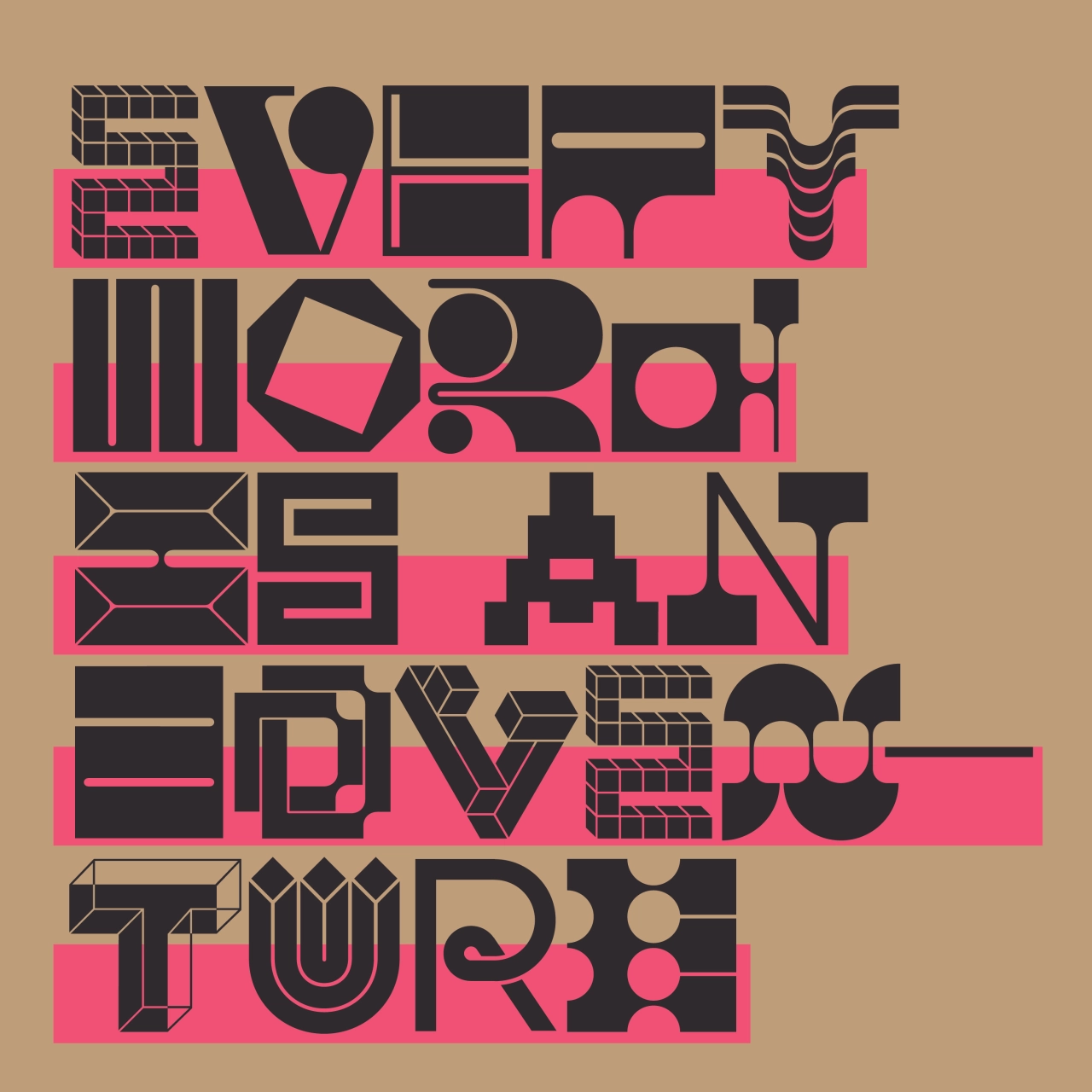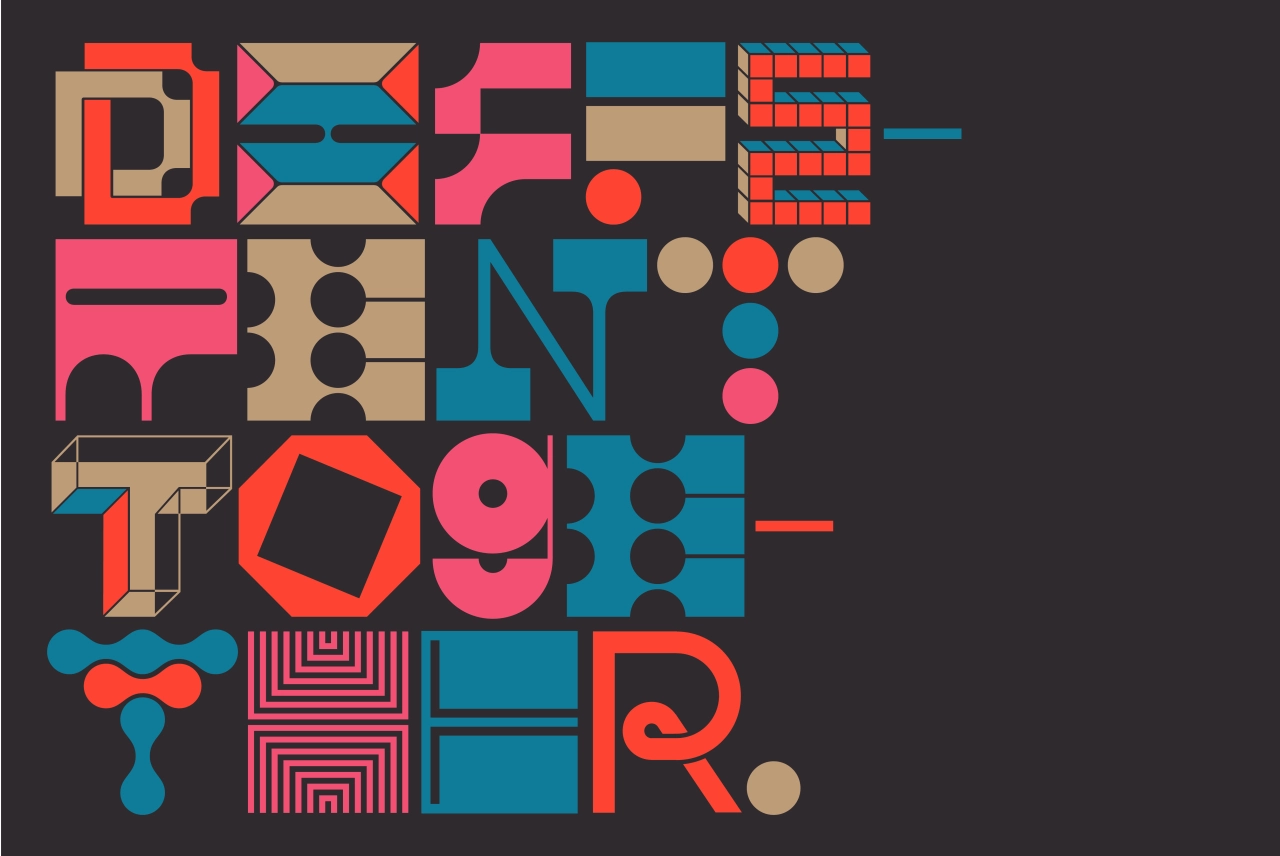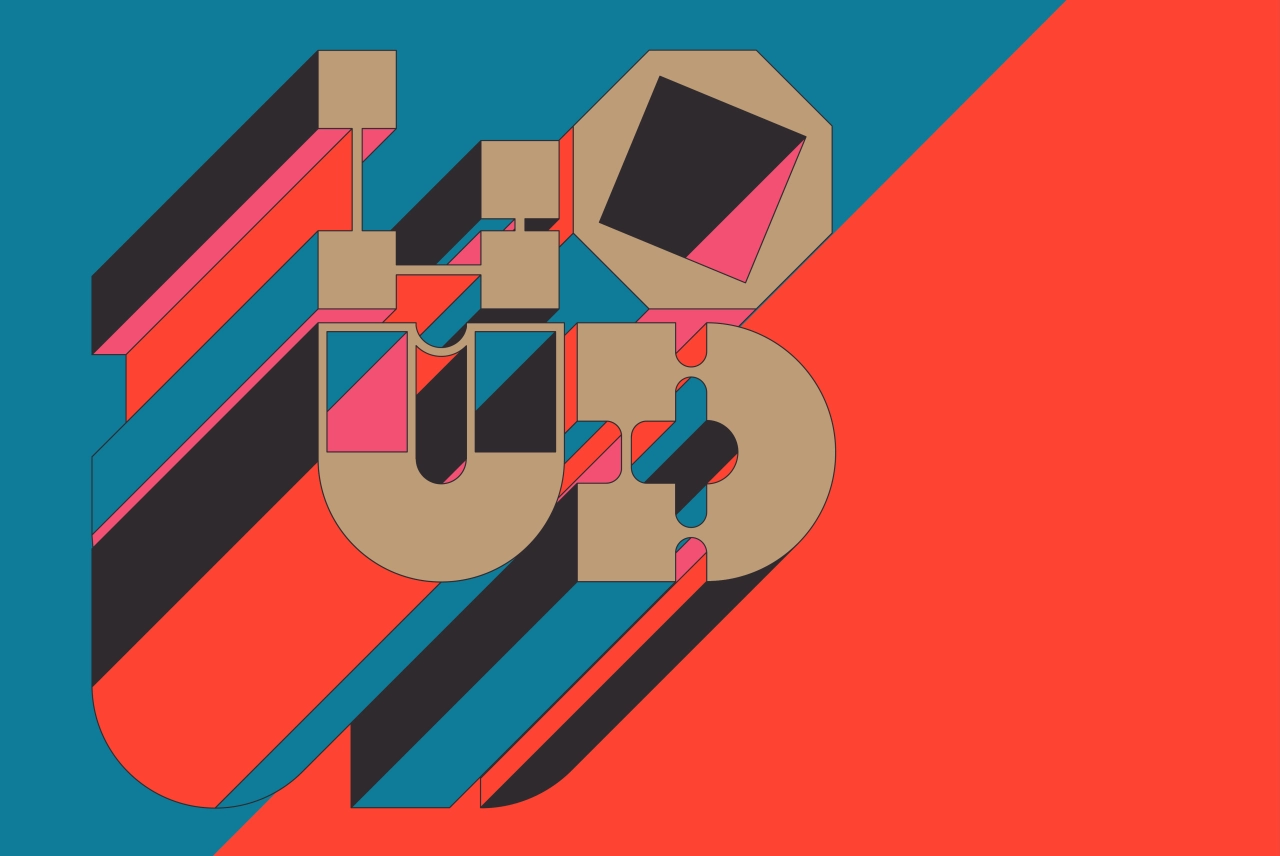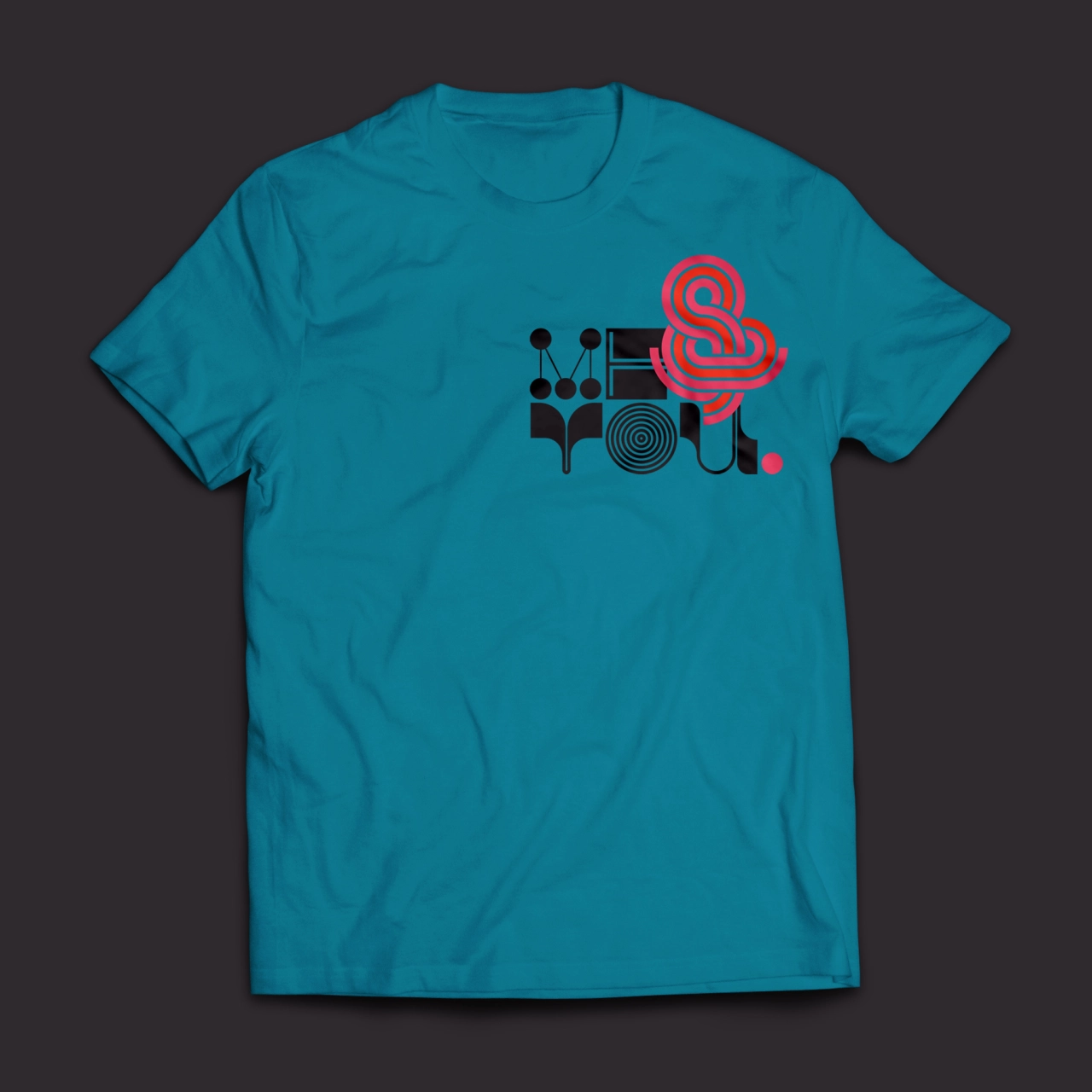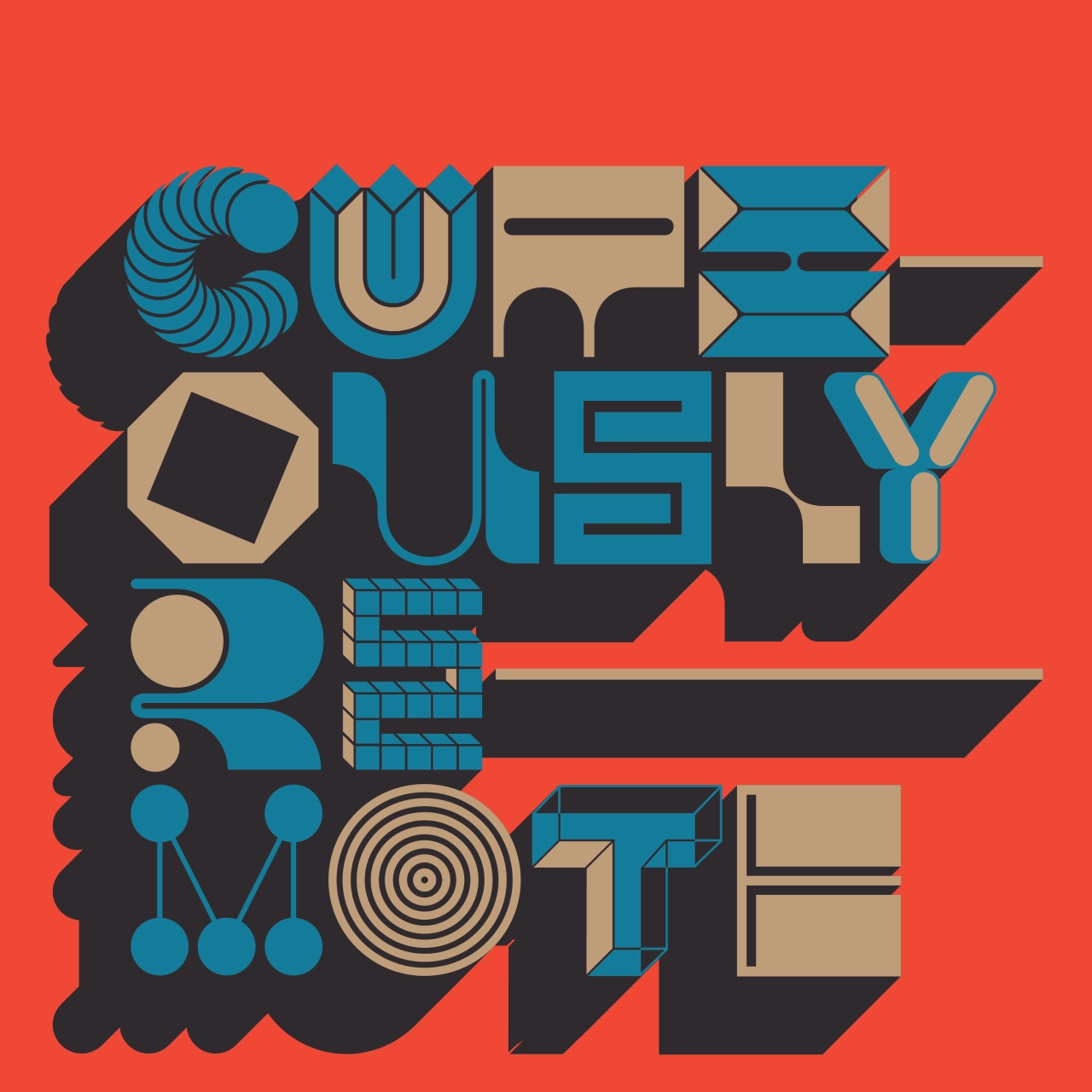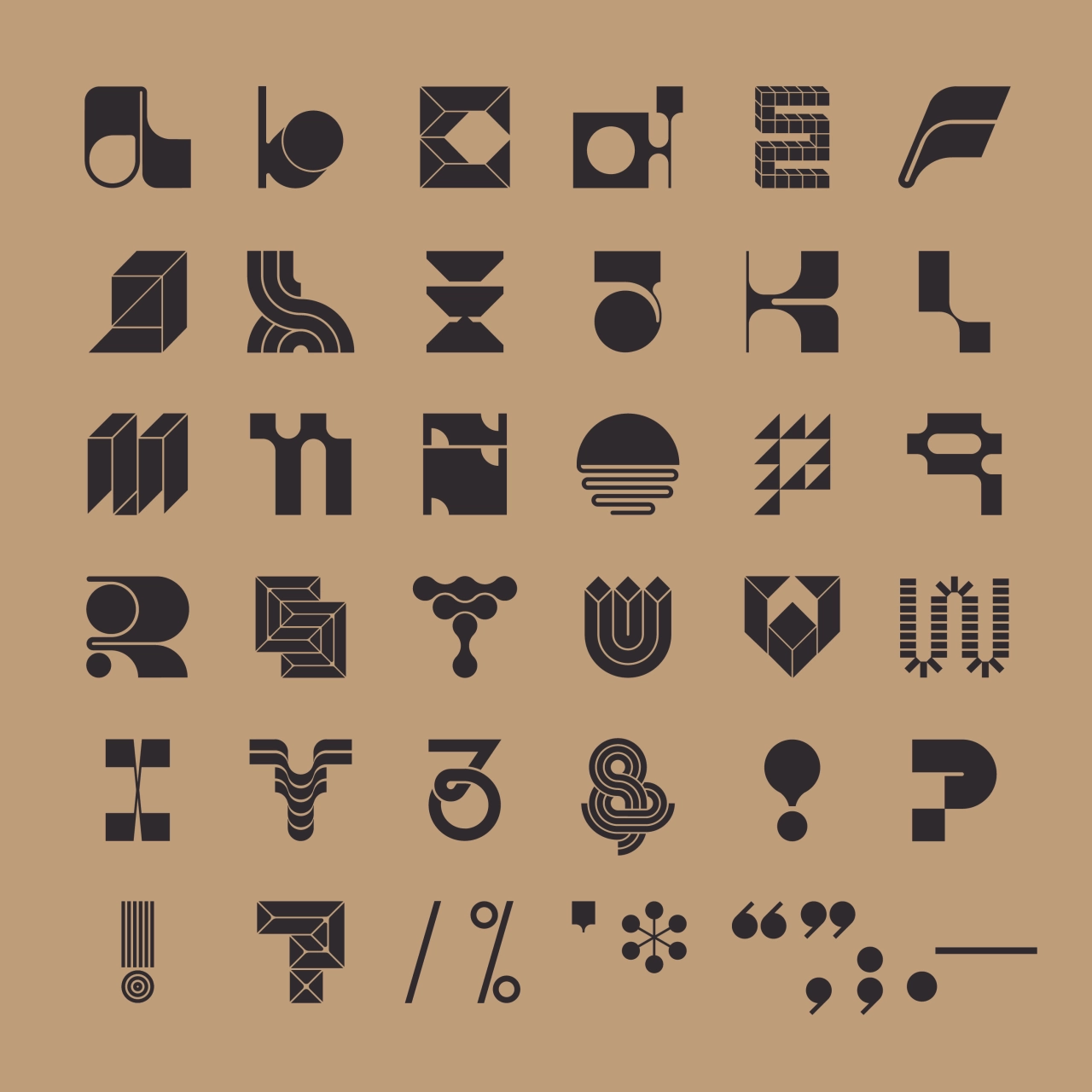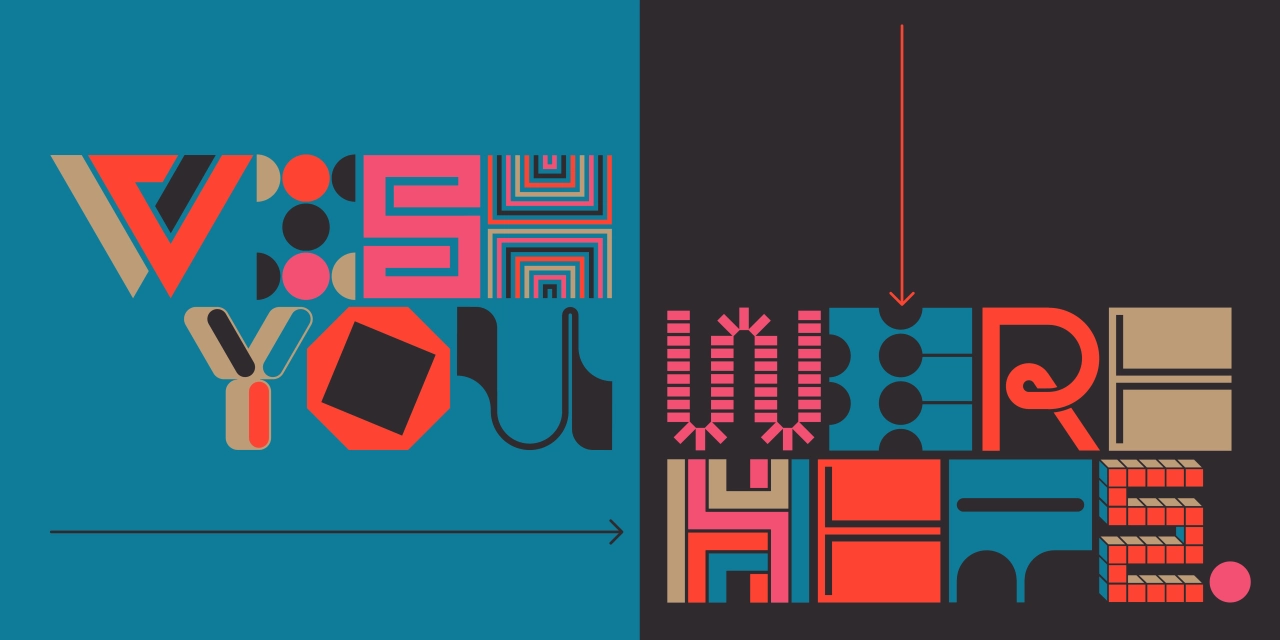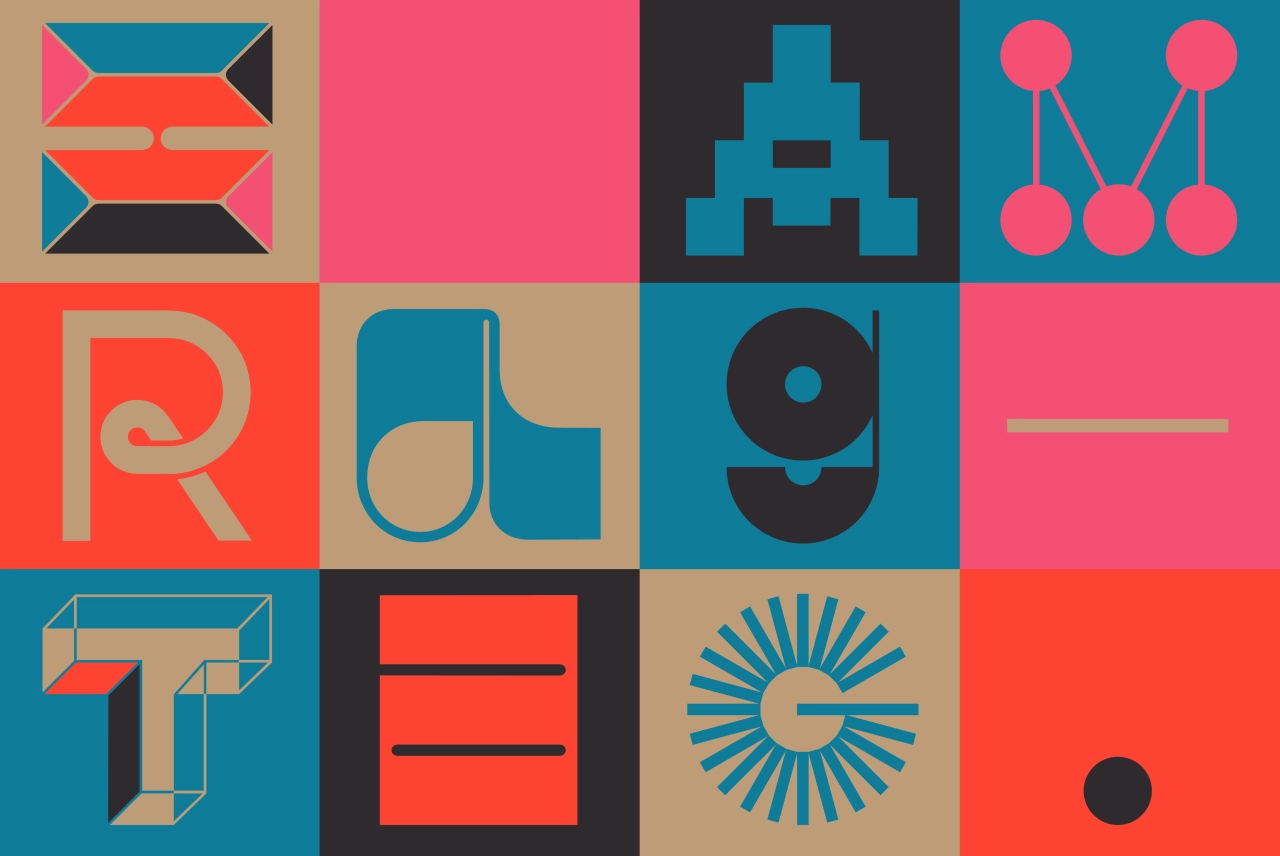
Meet Ragtag, In-House International's first-ever font, marking the launch of its new foundry
Adventurous, graphic, fun and loud, Ragtag is a new display font by In-House International and the first font to be released by the Texas-based design studio.
Each letter is unique and designed so it composes "beautifully with all others" but can "also stand on its own as an accent piece or as part of a design", so says Michu Benaim Steiner, creative chief at the American firm.
Ragtag features three glyph sets (A-Z, 0-9) plus a few extra goodies like eñes and diacritics. In-House partner Alexander Wright drew individual characters so they could "stand on their own, like each one could be a logo, but keeping compositions and the system top of mind."
The font was inspired by the "scattered crew of makers and designers" at the design studio, which is a fully remote creative home-based in Austin. Ragtag also marks the launch of the studio's foundry, focusing on bold display typefaces.
The design of Ragtag was led by In-House designer Alexander Wright and developed on Opentype format (.otf) by Rodrigo Fuenzalida. Discover more at YouWorkForThem.com.